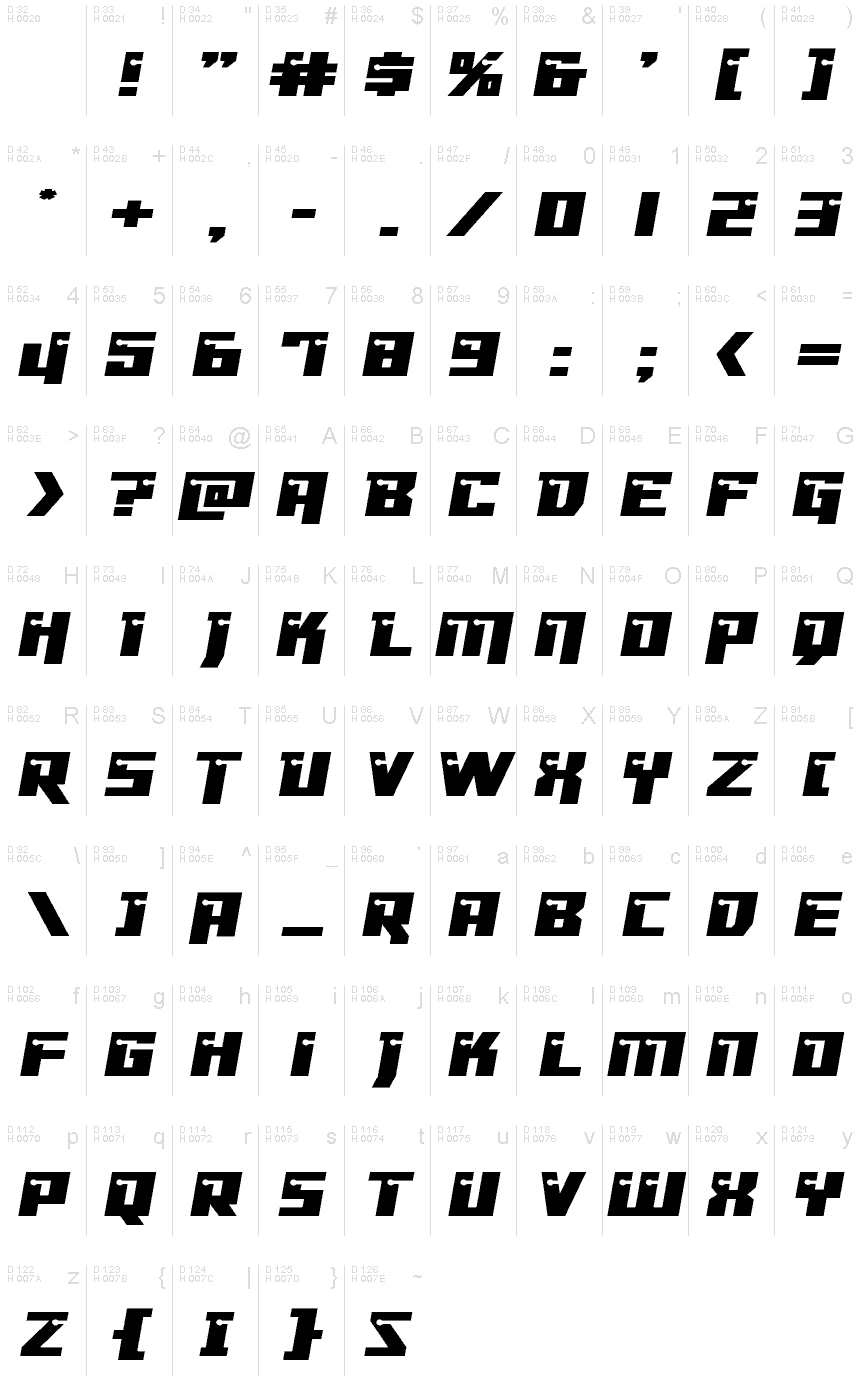
Dangerbot Extra-Expanded font by Iconian Fonts is an exceptionally bold display font with a futuristic and energetic look. The expanded font presents angular and geometric shapes that immediately strike attention. The industrial design feels modern and assertive – ideal for futuristic works that require strength, confidence, and attitude.
Dangerbot Extra-Expanded